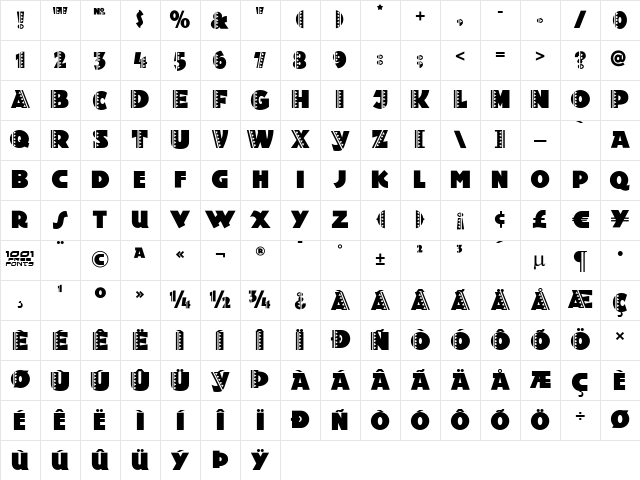
Holy Ravioli NF Regular
Foundry: Nick's Fonts
Designer: Nick Curtis
Design Context for Holy Ravioli NF
Holy Ravioli NF is a composed and adaptable typeface that performs quietly and consistently across a wide range of design contexts.
Pro Tip: Use Holy Ravioli NF in both headline and body roles to test its range before committing to a single application.